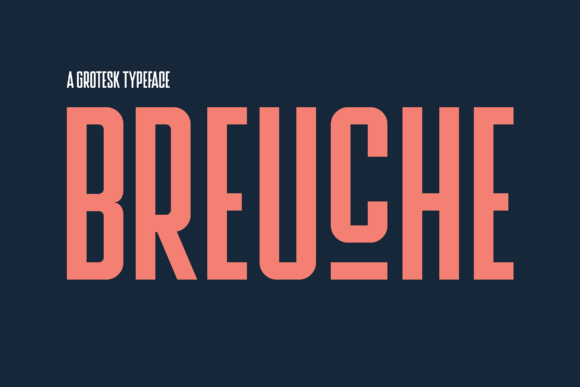
Breuche Font: A Simple yet Powerful Display Font for Your Creative Projects
In the world of typography, a font can make or break a design. With so many options available, it can be overwhelming to choose the right one. However, if you’re looking for a simple, bold, and thick lettered display font, look no further than Breuche Font. In this article, we’ll dive into the features and benefits of Breuche Font, and explore how it can elevate your creative projects.
What is Breuche Font?
Breuche Font is a display font that is characterized by its simplicity, boldness, and thickness. It’s an ideal choice for designers and crafters who want to add a unique touch to their work. Whether you’re designing a website, creating business cards, or working on a craft project, Breuche Font is a versatile font that can be used in a variety of applications.
Key Features of Breuche Font
- Simple yet Bold: Breuche Font is a perfect blend of simplicity and boldness. Its clean lines and thick letters make it stand out from other fonts.
- Thick Lettered: The font’s thick letters give it a strong and confident look, making it perfect for headlines, titles, and other display text.
- Versatile: Breuche Font can be used in a variety of applications, from web design to print design, and even craft projects.
- Unique Touch: The font’s unique style adds a touch of personality to any design, making it perfect for designers and crafters who want to stand out.
Uses of Breuche Font
Breuche Font is a versatile font that can be used in a variety of applications. Here are some of the most popular uses of Breuche Font:
- Web Design: Breuche Font is perfect for web design, particularly for headlines, titles, and other display text. Its bold and thick letters make it easy to read, even on smaller screens.
- Business Cards: Add a unique touch to your business cards with Breuche Font. Its simplicity and boldness make it a great choice for professional designs.
- Craft Projects: Breuche Font is also perfect for craft projects, such as scrapbooking, DIY signs, and other handmade crafts.
- Social Media Graphics: Use Breuche Font to create eye-catching social media graphics, such as Facebook posts, Twitter headers, and Instagram stories.
Benefits of Using Breuche Font
There are many benefits to using Breuche Font in your creative projects. Here are some of the most significant advantages:
- Easy to Read: Breuche Font is easy to read, even at smaller sizes, making it perfect for a variety of applications.
- Unique Style: The font’s unique style adds a touch of personality to any design, making it perfect for designers and crafters who want to stand out.
- Versatile: Breuche Font can be used in a variety of applications, from web design to print design, and even craft projects.
- Time-Saving: With Breuche Font, you can create professional-looking designs in no time, saving you time and effort.
Tips for Using Breuche Font
Here are some tips for using Breuche Font in your creative projects:
- Use it for Headlines: Breuche Font is perfect for headlines and titles, so use it to grab attention and add emphasis.
- Experiment with Colors: Try out different colors and color combinations to add depth and interest to your designs.
- Pair it with Other Fonts: Breuche Font pairs well with other fonts, so experiment with different combinations to create a unique look.
- Keep it Simple: Breuche Font is a simple font, so keep your design simple and clean to let the font shine.
Breuche Font is a simple yet powerful display font that can elevate your creative projects. Its bold and thick letters make it perfect for headlines, titles, and other display text. With its versatility, unique style, and ease of use, Breuche Font is a great choice for designers and crafters who want to add a unique touch to their work. So why not give Breuche Font a try and see how it can take your designs to the next level?